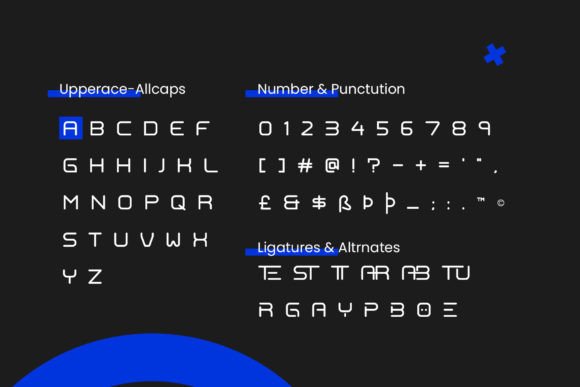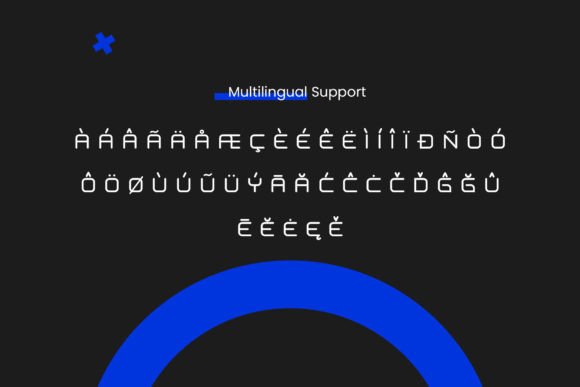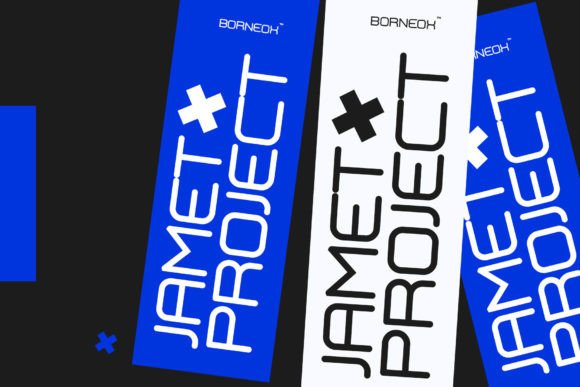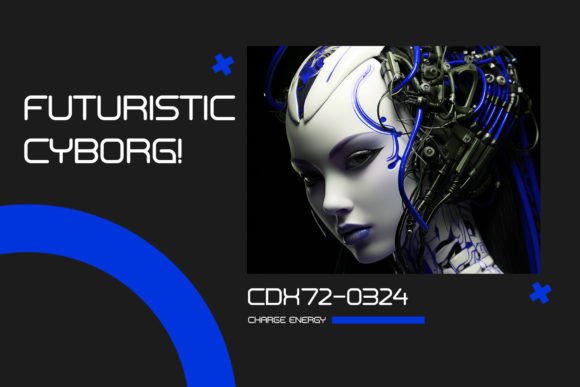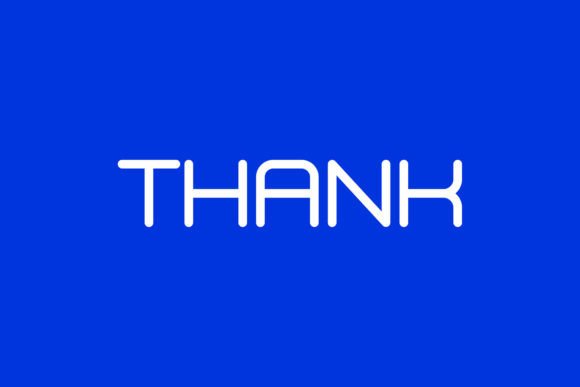
Unlocking the Future of Design with Borneox Font
Have you ever stared at a blank canvas, waiting for inspiration to strike? For designers, this moment can be both exhilarating and daunting. But what if you had the perfect tool to bring your futuristic vision to life? Enter the Borneox Font, a typeface that combines monoline elements with a bold, futuristic design.
With its unique blend of style and functionality, the Borneox Font is the perfect addition to any design project. Whether you’re working on a sci-fi novel, a futuristic app, or a cutting-edge marketing campaign, this font brings a sense of innovation and forward-thinking to your work. And with its PUA encoding, you can easily access all of the amazing glyphs and ligatures that make this font truly special.
Borneox Font Key Features
- Font Family: Borneox Font is a sans-serif font family designed for modern and minimalist designs.
- Character Set: Supports a wide range of languages, including Latin, Cyrillic, and Greek alphabets, making it a versatile font for global applications.
- Unique Characteristics: Features a distinctive geometric shape and clean lines, making it an ideal choice for modern branding, digital interfaces, and editorial content.
Borneox Font Review
I recently had the chance to work with the Borneox font, and I must say it’s a solid choice for many projects. Here are some of its strengths: ✨
- Unique aesthetic – Borneox has a distinctive look that sets it apart from more traditional fonts. Its geometric shapes and sharp lines make it perfect for modern designs.
- High legibility – The font is easy to read, even at smaller font sizes, making it ideal for body text and other areas where readability is crucial.
- Good for digital use – Borneox is well-suited for digital media, such as websites, social media, and mobile apps.
However, I did encounter some limitations: ⚠️
- Limited language support – Borneox is primarily designed for Latin-based languages, which may limit its use for projects that require support for other scripts.
- Not suitable for complex text – Due to its geometric design, Borneox may not be the best choice for projects that require a lot of complex text, such as academic or technical writing.
Overall, I’m impressed with the Borneox font. While it may have some limitations, its unique aesthetic and high legibility make it a great choice for many projects. Just be aware of its limitations before making a final decision.
Tips for Getting the Most Out of Borneox Font
Use Borneox Font for headings and titles to add a touch of elegance to your designs.
Combine Borneox Font with other fonts for a unique and eye-catching visual effect.
Borneox Font is ideal for:
- Corporate branding and marketing materials.
- Magazine and newspaper headlines.
Alternatives to Borneox Font for Designers
1. Montserrat Font
Montserrat is a modern sans-serif font designed for urban environments. It’s perfect for use in digital products, apps, and websites where a clean and minimalist look is required. Montserrat is a great alternative to Borneox Font as it offers a similar urban feel but with a more geometric and modern aesthetic.
2. Open Sans Font
Open Sans is a popular sans-serif font that’s highly legible and suitable for a wide range of applications. It’s a great choice for body text and headings, and its neutral design makes it a versatile alternative to Borneox Font. Open Sans is more rounded and friendly compared to Borneox Font, making it suitable for a variety of industries.
3. Inter Font
Inter is a sleek and modern sans-serif font designed for digital use. It’s perfect for use in websites, apps, and digital products where a clean and sophisticated look is required. Inter is a great alternative to Borneox Font as it offers a similar level of sophistication but with a more modern and sleek aesthetic.
Q: Does the Borneox Font support advanced typography features?
Yes, the Borneox Font supports advanced typography features, including ligatures, fractions, and stylistic sets. It also includes a wide range of language support, including Latin, Cyrillic, and Greek scripts.